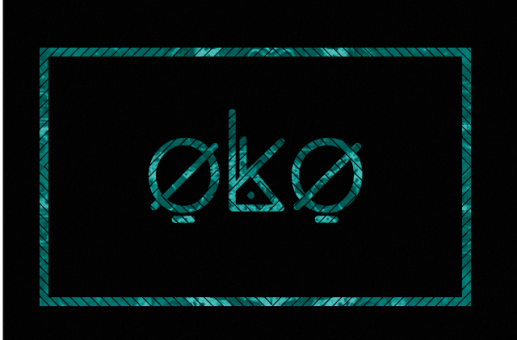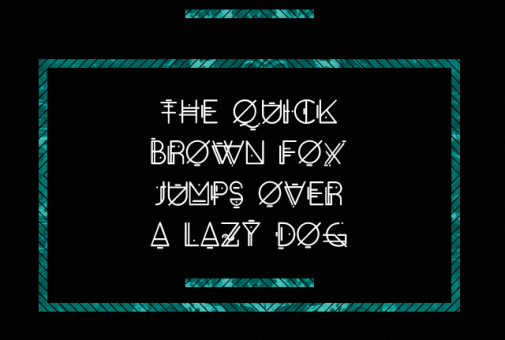
Oko Typeface
The Oko is the first typography of a family that is being developed. This letter is alternative, without serif and contrast. All letters submitted contain greater or lesser promenor, making oko a visually rich typography. Preferably designed for use in posters and development of branding.